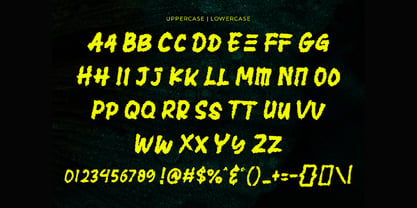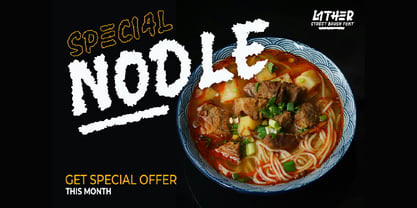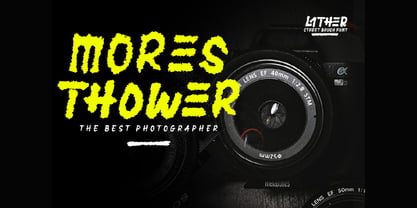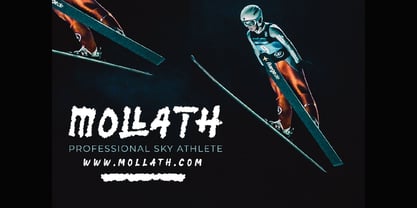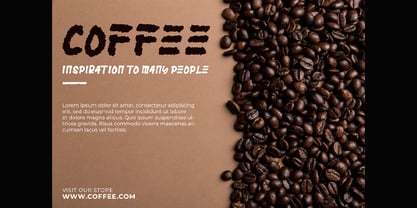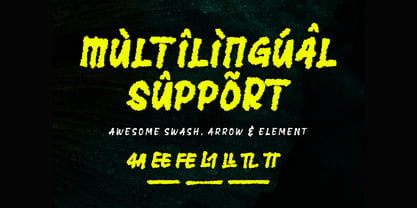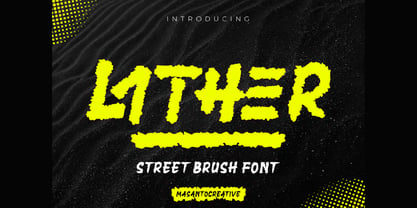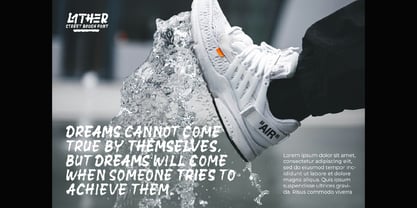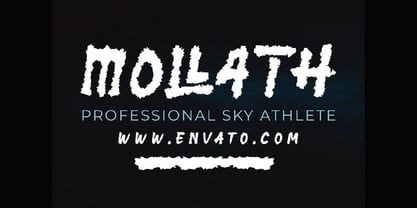
Lather
by Kangfont Studio
The Lather Font Family was designed by Sur Anto and published by Kangfont Studio. Lather contains 2 styles and family package options. More about this family
Introducing Lather — a bold and energetic street brush font designed to bring raw urban vibes and fearless character into your creative projects. Inspired by street culture, adventure aesthetics, and expressive hand-painted lettering, Lather features rough textures, dynamic strokes, and authentic brush details that instantly grab attention.
Perfect for designers who want to create eye-catching visuals with a strong personality, Lather works beautifully for streetwear branding, sports graphics, poster design, music covers, product packaging, YouTube thumbnails, social media content, and urban-style logos. Its handcrafted brush style delivers a natural and adventurous feel while maintaining excellent readability.
Designers: Sur Anto
Foundry: Kangfont Studio